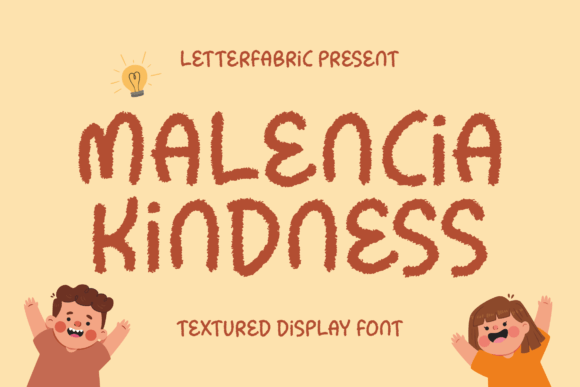
Welcome, discerning designers, to the breathtaking world of Malencia Kindness, a font crafted to capture the essence of warmth, tranquility, and elegance. This textured display font isn't merely a collection of letters; it's an invitation to embark on a sensory journey, where your creative visions come to life with an unmatched allure.
Malencia Kindness belongs to the display font family, a group of fonts characterized by their larger size and distinct visual appeal. These fonts are designed to make a statement, drawing the attention of viewers and leaving a lasting impression.
Immerse yourself in the possibilities that await you with Malencia Kindness. Whether you're crafting logos that exude sophistication, branding projects that radiate charm, or homeware designs that evoke a sense of coziness, this font is your perfect companion.
Unleash your creativity with product packaging that captivates customers, mugs that warm hearts with their heartfelt messages, and posters that inspire and uplift. Transform everyday objects into extraordinary works of art with Malencia Kindness.
Envision shopping bags that turn heads with their playful typography, t-shirts that spark conversations with their unique designs, and book covers that hint at the magical stories within.
With Malencia Kindness, your name cards, invitation cards, and greeting cards will transcend the ordinary, becoming cherished keepsakes that carry a touch of your personal style.
Elevate your photography with watermarks that add a subtle yet striking touch of elegance. Create special events that linger in memories, enhanced by the enchanting aura of Malencia Kindness.
From logos to labels, from quotes to posters, from product packaging to book covers, Malencia Kindness is the font that turns the mundane into the remarkable. It's the perfect choice for designers seeking to evoke emotions, create connections, and leave an indelible mark on their audience.